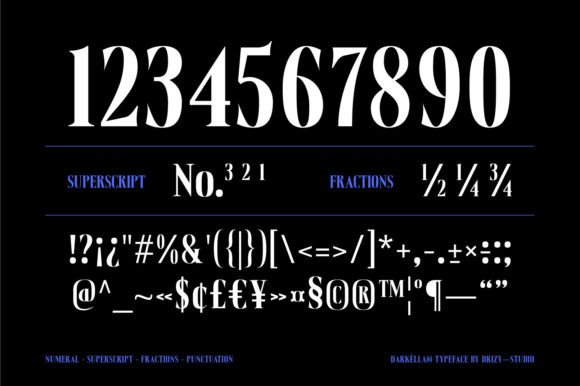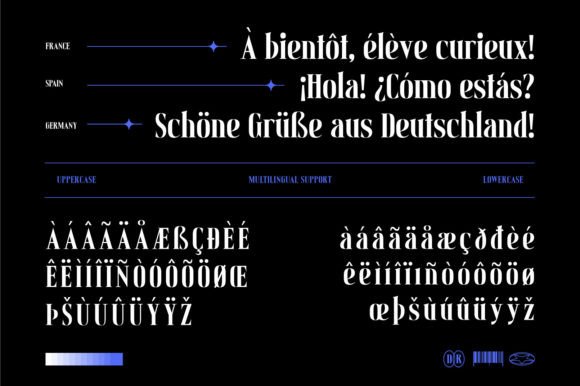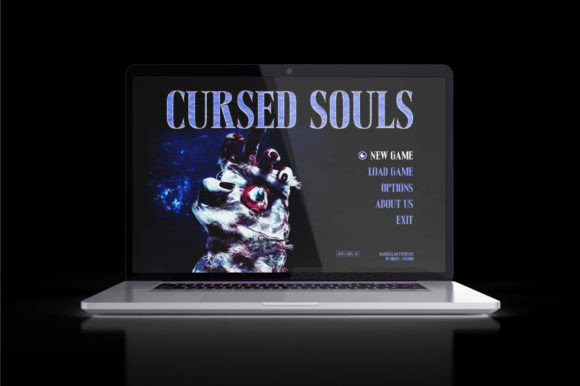
Introduction to Darkella Font
Have you ever been working on a creative project and suddenly, the perfect font appears to elevate your design? That’s exactly what happened to many designers who discovered the enchanting Darkella Font. This bewitching blend of vintage elegance and dark allure has become a sought-after design resource for crafting spellbinding invitations, posters, and branding that demand attention.
As a high-quality design asset, the Darkella Font offers a unique combination of bold and ornate letterforms, exuding a mysterious and haunting vibe. Its retro flair makes it an ideal choice for designers looking to add a touch of timelessness and dark aesthetic to their projects. Whether you’re working on a Halloween-themed project or simply want to create a design that stands out, the Darkella Font is a valuable resource that will help you cast a powerful spell on your designs.
Honest Review: Darkella Font
I recently had the chance to experiment with the Darkella Font, and I must say, it’s a great addition to any designer’s toolkit. This high-quality font is perfect for creative projects that require a touch of elegance and sophistication.
One of the things that stands out about the Darkella Font is its versatility. It’s suitable for a wide range of design applications, from logos to typography-heavy designs, and it’s even great for creating transparent backgrounds, which is a fantastic feature for designers who want to add an extra layer of depth to their designs.
Here are some of the things that I think work well about the Darkella Font:
- ✨ Versatile font that’s suitable for a wide range of design applications
- ✨ Great for creating transparent backgrounds
While the Darkella Font is a great design resource, I did encounter some limitations. For example:
- ⚠️ Limited character set, which may not be ideal for designers who need to use the font for extended text-based projects
- ⚠️ Not as extensive as some other fonts in terms of available weights and styles
Overall, I’m impressed with the Darkella Font and would definitely recommend it to designers who are looking for a high-quality font for their creative projects. While it may have some limitations, it’s a great addition to any design resource library.